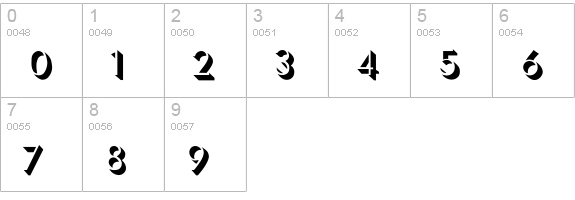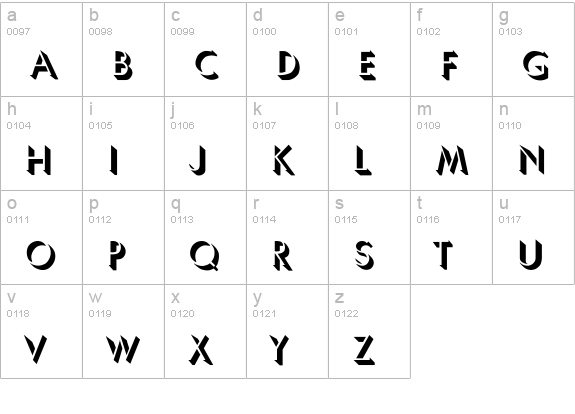
Brela-Normal Font Details
Brela-Normal is the standard, neutral variant in the Brela typeface family \xE2\x80\x94 well suited to general body text, paragraphs, and standard typographic work.
Brela-Normal font is a versatile and modern typeface that exudes elegance and sophistication. With its clean lines and balanced proportions, this font is perfect for a wide range of design projects, from branding to editorial work. The sleek and timeless design of Brela-Normal font makes it a popular choice for designers looking to add a touch of class to their creations. The best part? Brela-Normal font is completely free to download at FontsMarket.com! Simply visit the website to access this beautiful font and enhance your designs with its stylish aesthetic. Whether you're working on a website, a poster, or a logo, Brela-Normal font is sure to make your text stand out with its effortless charm and sophistication. Download it today and elevate your design projects with this stunning typeface.